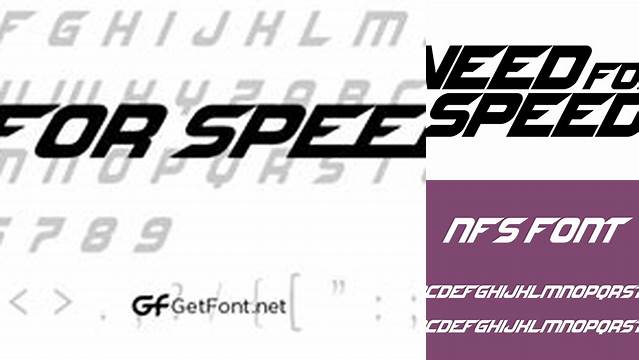
Are you a Need for Speed enthusiast looking to capture the iconic racing game's aesthetic in your projects? The right font can make all the difference, and finding that perfect typeface can rev up your designs. In this article, we'll dive deep into the world of Need for Speed fonts, guiding you on how to find and free download options that will bring that signature speed and style to your work. So, buckle up, guys, because we're about to embark on a high-octane journey into typography! Whether you're designing a fan poster, creating a video game mod, or just spicing up your social media posts, understanding the fonts associated with Need for Speed is crucial. We will explore the history of fonts used in the series, identify similar typefaces, and guide you on where to safely download these fonts for free. Let’s get started and inject some speed into your designs!
Understanding the Need for Speed Font Aesthetic
When it comes to Need for Speed, the font isn't just a visual element; it's a crucial part of the game's identity. The fonts used in the Need for Speed franchise have evolved over the years, reflecting the changing styles and themes of each installment. However, there's a consistent thread of speed, dynamism, and modernity that runs through them all. Think bold, sleek lines, and a sense of forward motion – that’s the essence of the Need for Speed font aesthetic. Understanding this aesthetic is key to choosing the right font for your project, whether it's a fan-made poster, a video edit, or a custom car design. The franchise has used various fonts over the years, but they generally fall into the categories of strong sans-serifs and futuristic typefaces. These fonts often feature sharp angles, condensed forms, and a sense of aggression that perfectly complements the high-speed racing action. Knowing the history and evolution of the Need for Speed font aesthetic allows you to make informed choices when selecting a font for your project. By understanding the underlying design principles, you can ensure that your work captures the essence of the game franchise. This includes not only choosing a similar typeface but also applying design elements that echo the game's branding, such as color schemes, gradients, and effects. For instance, many Need for Speed titles use neon colors and glowing effects, which can be replicated in your designs to enhance the overall look and feel.
Ultimately, the Need for Speed font aesthetic is about conveying speed, style, and excitement. By understanding these elements, you can choose a font that not only looks the part but also enhances the message and impact of your design. So, when you're on the hunt for that perfect typeface, keep these principles in mind and let your creativity take the wheel!
Identifying the Fonts Used in Need for Speed Games
Identifying the specific fonts used in Need for Speed games can be a bit of a detective mission, but it's a crucial step in replicating the game's iconic look. While the exact fonts may vary from title to title, there are some recurring styles and typefaces that capture the essence of the series. Often, the fonts used are custom-made or heavily modified, making them difficult to pinpoint. However, by examining the letterforms, weight, and overall style, we can identify similar fonts that will get you pretty close. One common characteristic is the use of bold sans-serif fonts with a modern and aggressive feel. These fonts often have sharp angles, condensed forms, and a sense of speed, perfectly matching the high-octane racing action of the games. Popular choices include fonts like Eurostile, Bebas Neue, and Avenir Next Condensed, which share similar characteristics. Another approach is to use font identification tools and websites. These tools allow you to upload an image of the text from a Need for Speed game, and they will attempt to identify the font or suggest similar options. This can be a quick and efficient way to narrow down your search. Keep in mind that even if you can't find the exact font, a close approximation can still achieve the desired effect. The key is to focus on the overall style and feel of the font, rather than getting hung up on minor details. Pay attention to the spacing between letters, the thickness of the strokes, and the overall visual impact.
Beyond the main title fonts, Need for Speed games often use different fonts for UI elements, menus, and other text on screen. These fonts tend to be more legible and less stylized, but they still maintain a modern and clean aesthetic. Common choices include fonts like Roboto, Open Sans, and Helvetica Neue, which are widely used for their readability and versatility. When recreating the Need for Speed look, it’s important to consider the context in which the font will be used. A bold, aggressive font might be perfect for a title or logo, but it may not be suitable for body text or UI elements. In these cases, a more legible and understated font would be a better choice. Remember, the goal is to create a cohesive and visually appealing design that captures the spirit of the Need for Speed franchise. By carefully selecting and combining fonts, you can achieve a professional and authentic look that will impress any fan of the series.
Installing and Using Your New Fonts
Okay, you’ve found some awesome Need for Speed-style fonts and downloaded them – now what? The next step is to install and use these fonts in your design projects. Don’t worry, it’s a pretty straightforward process, and once you’ve done it a few times, you’ll be a pro! The first thing you need to do is locate the font files that you downloaded. Fonts typically come in two file formats: .OTF (OpenType Font) and .TTF (TrueType Font). Both formats are widely supported, so you can use either one. Once you’ve found the font files, the installation process varies slightly depending on your operating system. On Windows, you can install a font by right-clicking on the font file and selecting “Install.” Alternatively, you can copy the font file into the “Fonts” folder in your Windows directory (usually C:\Windows\Fonts). On macOS, you can install a font by double-clicking on the font file and then clicking the “Install Font” button in the Font Book application. You can also drag and drop the font file into the Font Book application. After you’ve installed the font, it should be available for use in any application that supports fonts, such as Adobe Photoshop, Adobe Illustrator, Microsoft Word, and more. To use the font, simply select it from the font menu in your application. When using your new fonts, it’s important to consider the context of your design. A bold, aggressive font might be perfect for a title or logo, but it may not be suitable for body text or other elements. In these cases, you’ll want to choose a more legible font that complements the overall design.
Experiment with different font sizes, weights, and styles to see what works best for your project. You can also try adding effects like shadows, glows, and gradients to enhance the look of your fonts. These effects can help you capture the Need for Speed aesthetic and create a visually stunning design. Remember, typography is an important part of any design, so take the time to choose the right fonts and use them effectively. By following these tips, you can create designs that are both visually appealing and true to the spirit of Need for Speed. So, go ahead and start experimenting with your new fonts – the possibilities are endless!
Tips for Creating Need for Speed Inspired Designs
Now that you've got your hands on some killer Need for Speed fonts, let's talk about how to use them to create designs that truly capture the essence of the game. It's not just about slapping a cool font on a poster; it's about understanding the visual language of Need for Speed and translating that into your work. Think about the overall aesthetic of the game – the sleek cars, the vibrant neon lights, the sense of speed and adrenaline. These are the elements you want to incorporate into your designs. One of the key aspects of Need for Speed design is the use of bold, dynamic typography. The fonts are often large and impactful, commanding attention and conveying a sense of power. Use your Need for Speed-style fonts to create headlines and titles that jump off the page. Experiment with different font sizes, weights, and styles to find the perfect balance. Another important element is the use of color. Need for Speed games often feature vibrant, saturated colors, especially neon hues like blue, pink, and green. Incorporate these colors into your designs to create a visually striking and energetic look. You can use these colors for text, backgrounds, and other design elements.
So, there you have it, folks! A comprehensive guide to finding and using Need for Speed fonts for free. We've covered everything from understanding the Need for Speed font aesthetic to finding free download options, installing your new fonts, and creating Need for Speed-inspired designs. By now, you should be well-equipped to rev up your creative projects with the perfect typeface. Remember, the right font can make all the difference in capturing the speed, style, and excitement of the Need for Speed franchise. Don't be afraid to experiment with different fonts, colors, and effects to create designs that truly stand out. And most importantly, have fun with it! Designing should be an enjoyable process, so let your creativity flow and see what you can come up with. Whether you're creating a fan poster, designing a website, or working on a personal project, the tips and resources in this article will help you achieve the Need for Speed look you're after. So, go ahead and put your pedal to the metal – your next great design is just around the corner! And hey, if you create something awesome, be sure to share it with the world. We'd love to see what you come up with! Happy designing, guys, and may the fonts be ever in your favor! Keep exploring, keep creating, and keep pushing the boundaries of your design skills. The world of typography is vast and exciting, and there's always something new to learn. So, stay curious, stay inspired, and never stop experimenting. With the right fonts and a little bit of creativity, you can create designs that are truly unforgettable. Until next time, keep those engines running and those fonts flowing!